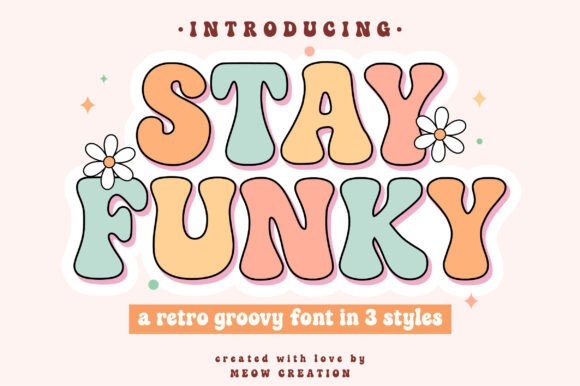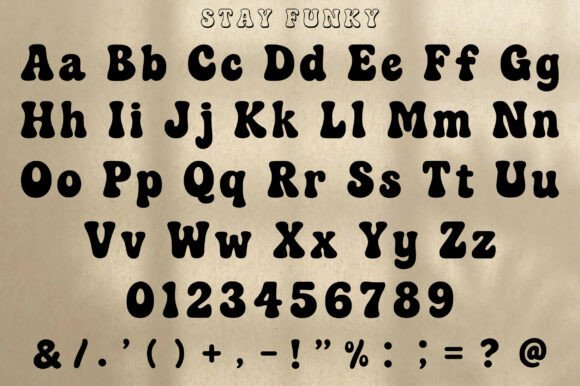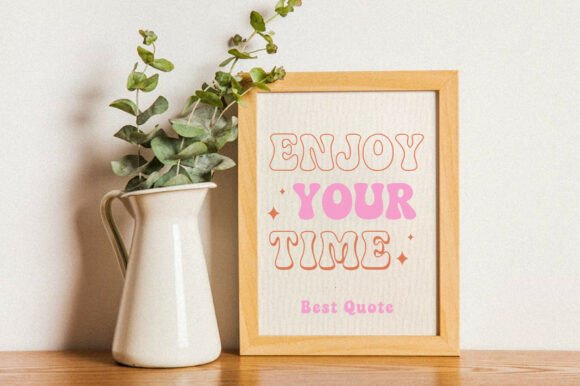
Stay Funky Font
Stay Funky Font is a bold and playful Groovy Font with a true retro vibe.
This set includes 3 fun styles – Regular, Outline, and Shadow – giving you flexibility to create eye-catching designs. With its curvy letters and bubbly shapes, this Vintage Font brings back the colorful hippie era in a modern way.
Perfect for Cricut and Silhouette projects, T-shirts, posters, stickers, logos, quotes, and social media graphics. You’ll get a full Groovy Alphabet, Bubble Letters, and easy-to-use Font SVG files for crafting and design.
Bring the fun back to your designs with the Stay Funky Retro Font collection – the ultimate choice for funky, groovy, and vintage-inspired artwork.